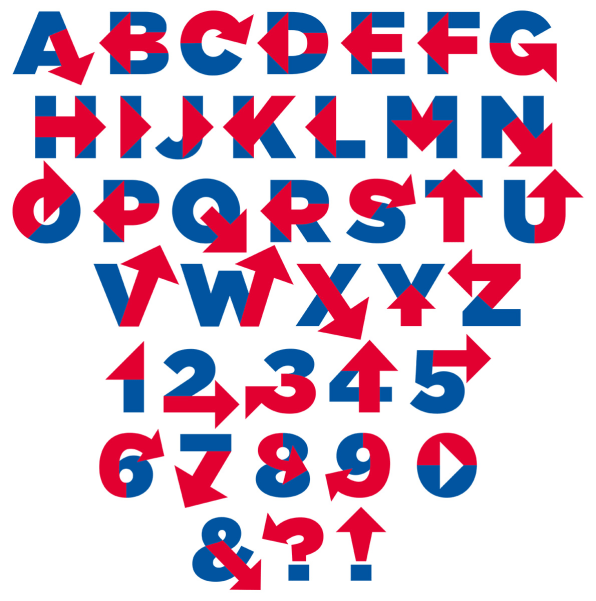
On Sunday, Hillary Clinton announced her bid for presidency with a big blue ‘H’ connected by a red arrow pointing right. It’s pretty obviously supposed to symbolize Clinton’s ability to cross the aisles to get things done, or something, but it soon became a weird design Rorschach test, which the Internet interpreted as everything from the signage on a Carnival Cruise Ship to (duh!) 9/11.
If just one little ‘H’ can cause all that pandemonium, imagine what a whole alphabet can do! Designer Rick Wolff has taken Hillary’s campaign logo and turned it into an entire typeface, called (appropriately enough) Hillvetica. If you thought that red arrow was enraging on an “H,” wait’ll you get a load of it on a Q, and ampersand, or a question mark!